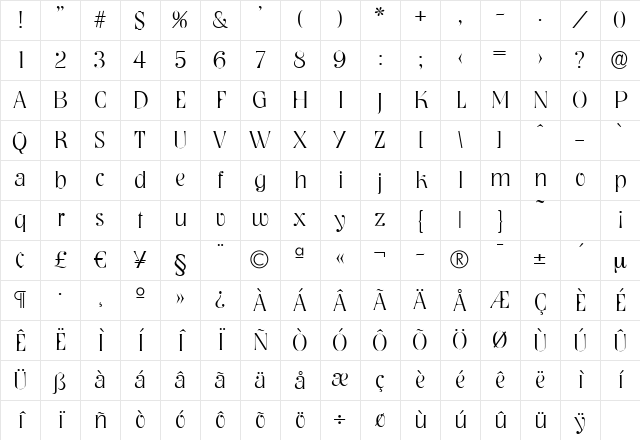
Design Context for BobBecker-ExtraLight
BobBecker-ExtraLight is a composed and adaptable typeface that performs quietly and consistently across a wide range of design contexts. Its slender proportions lend an understated elegance to any composition.